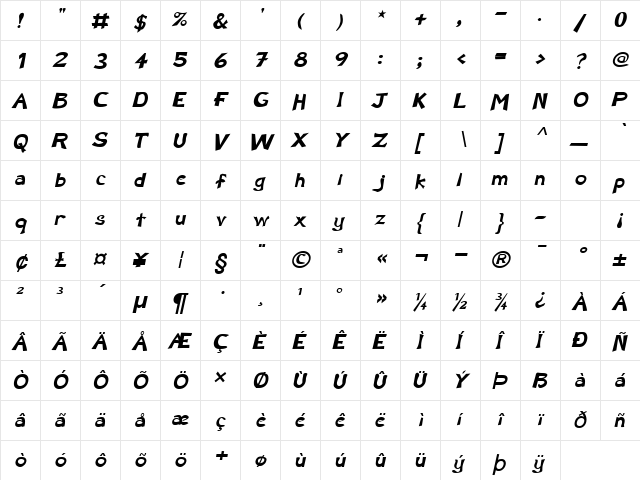
Sarah Italic
Design Context for Sarah Typeface
Sarah offers clean, dependable letterforms without strong stylistic allegiance, making it a practical choice for designers who need flexibility. Its italic angle brings a sense of urgency and motion to the letterforms.
Pro Tip: Use Sarah for emphasis, pull quotes, and subheadings where its slanted energy can add rhythm to the layout.